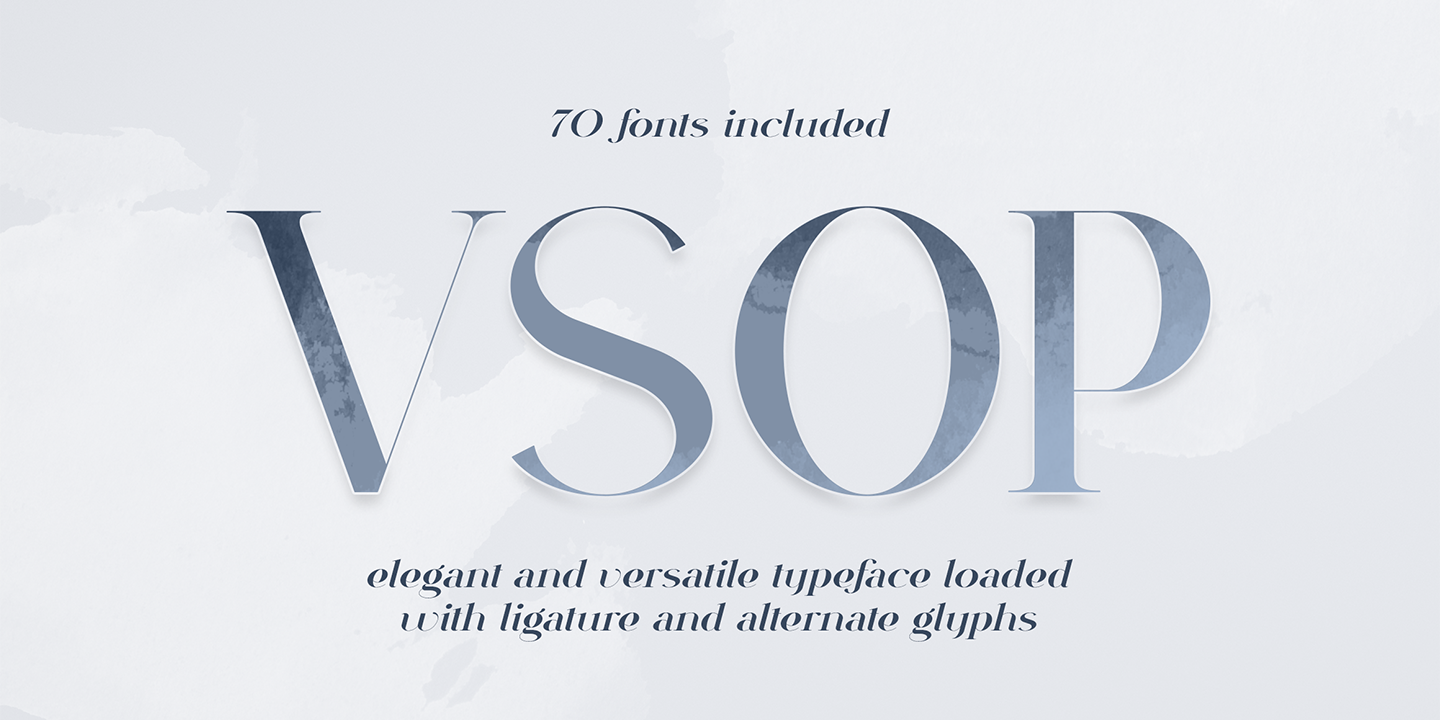
The Vsop Font excels in various design applications including premium spirits branding, luxury wine labels, high-end distillery packaging, exclusive beverage marketing, sophisticated restaurant menus, upscale bar signage, premium hospitality branding, luxury lifestyle magazines, exclusive event invitations, and refined product packaging that demands elegance and distinguished visual presence.
What makes the Vsop Font exciting is its sophisticated blend of classic refinement and contemporary luxury that perfectly captures the essence of premium aged spirits and fine craftsmanship. This typeface embodies the distinguished heritage associated with Very Superior Old Pale cognac classification, featuring elegant letterforms that convey maturity, quality, and exclusivity. The font's refined character makes it ideal for luxury brands seeking to communicate heritage, craftsmanship, and premium positioning through typography that exudes confidence and timeless appeal.
The Vsop Font family typically includes multiple weight variations from light to bold, often featuring elegant italic styles and extended character sets with special ligatures and decorative elements. These family options may include small caps, old-style numerals, and ornamental glyphs specifically designed for luxury packaging and premium branding applications, ensuring versatile performance across diverse high-end design contexts.
Luxury brand designers and premium beverage marketers consistently choose Vsop Font Free Download for projects requiring sophisticated visual communication and exclusive market positioning. This typeface delivers exceptional performance in luxury retail environments, premium packaging design, and upscale hospitality branding where conveying quality and exclusivity is paramount. The font's distinguished character makes it equally suitable for heritage brands and contemporary luxury products. Download Vsop Font Free Download today to access this remarkable typeface that elevates premium branding with its inherent sophistication and refined elegance, creating compelling visual experiences that resonate with discerning consumers who appreciate quality and craftsmanship.